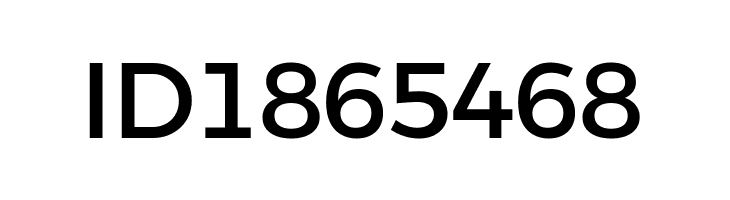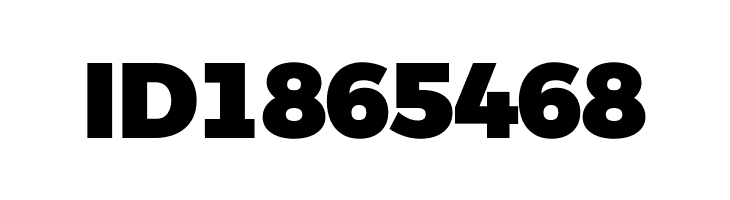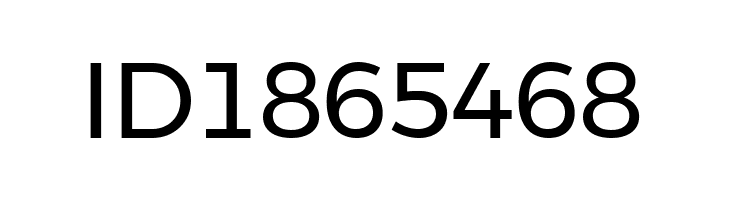
A bold, rounded sans-serif font with a modern and friendly appearance.
A bold, rounded font with a geometric and modern style.
A bold, modern font with thick strokes and a geometric style.
A bold, modern sans-serif font with clean lines and geometric shapes.
A modern, extra bold sans-serif typeface with a strong and assertive presence.